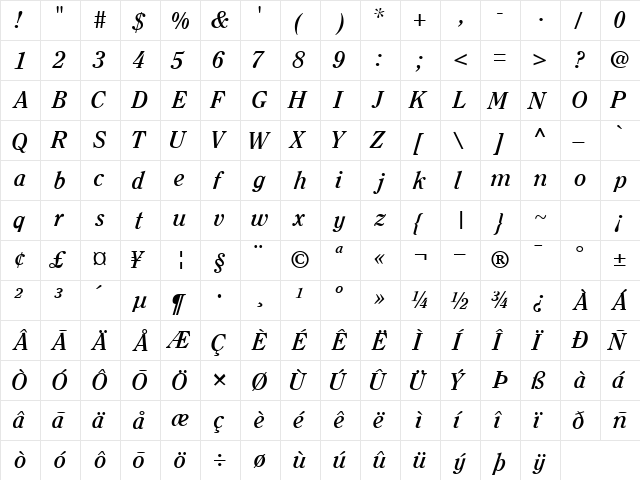
ClearfaceSSK Bold Italic Font Preview
Design Context for ClearfaceSSK Typeface
ClearfaceSSK takes a measured approach to typography — its balanced proportions and neutral character make it a reliable workhorse for both digital and print work. Its italic angle brings a sense of urgency and motion to the letterforms. Its bold stroke weight gives it real presence on the page.
Pro Tip: Try ClearfaceSSK for annotation and caption copy alongside an upright companion — the contrast in angle creates a dynamic but ordered typographic system.